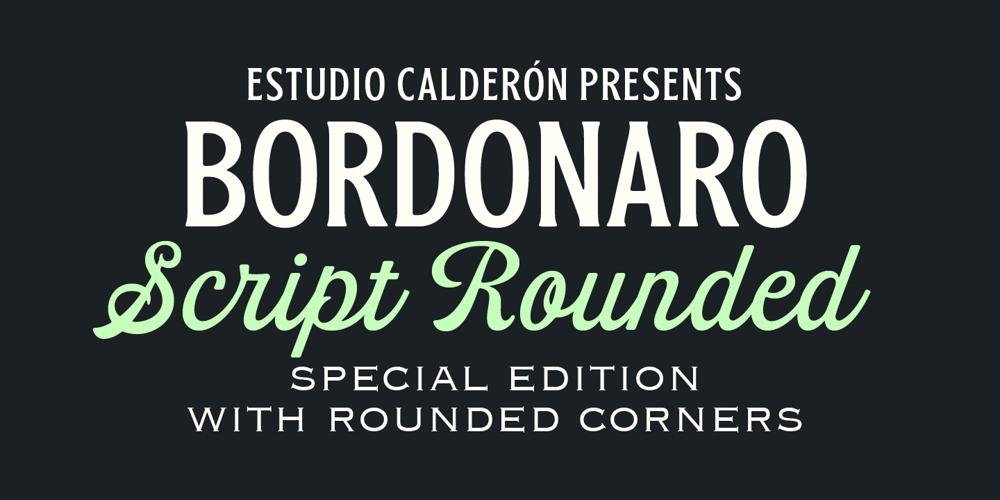
Bordonaro Script Rounded Font Family was designed by Felipe Calderón and published by Estudio Calderon. Bordonaro Script Rounded contains 1 styles and family package options. The new version of Bordonaro Script includes rounded corners. Bordonaro Script Rounded – Bordonaro Spur Rounded’s partner Meet it!